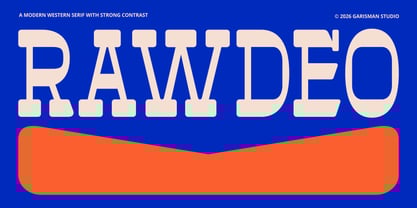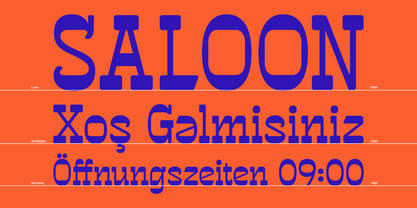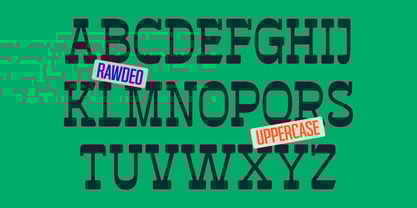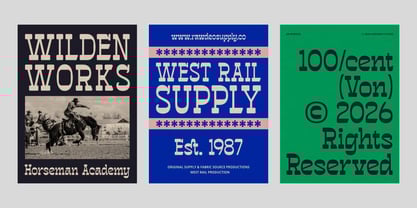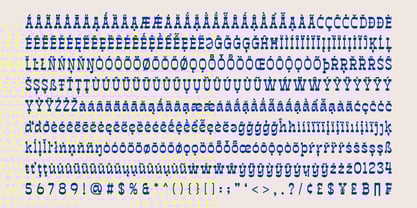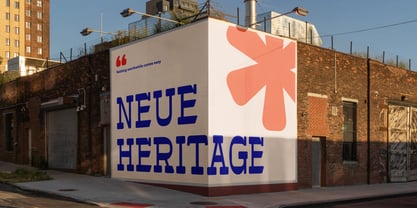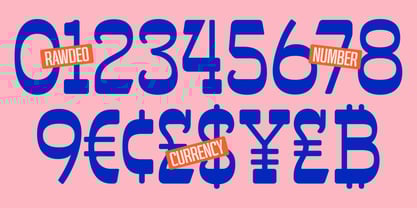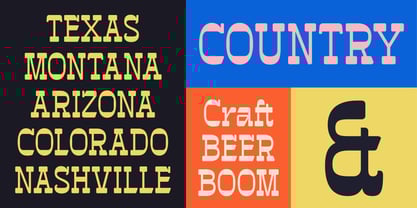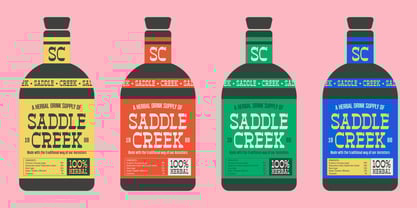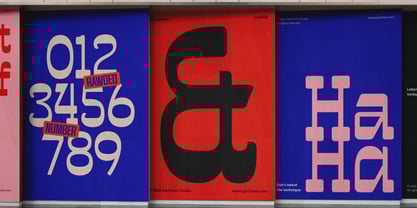
GR Rawdeo
by Garisman Studio
The GR Rawdeo Font Family was designed by Risman Ginarwan and published by Garisman Studio. GR Rawdeo contains 1 styles.
GR Rawdeo – Modern Western Serif Typeface with Strong Contrast is a bold slab serif display inspired by 19th-century frontier signage and classic wood type posters. Designed with strong contrast and confident serifs, it captures the spirit of old saloons, rodeo banners, and hand-painted shop signs from the 1880–1890 era. The letterforms combine vintage Western character with refined modern construction, making GR Rawdeo suitable for both nostalgic branding and contemporary design projects. Its dramatic presence works exceptionally well in logos, packaging, t-shirts, film titles, YouTube thumbnails, and large-scale headlines. GR Rawdeo includes OpenType features such as denominators, numerators, fractions, ordinals, stylistic alternates, localized forms, slashed zero, standard ligatures, and discretionary ligatures—allowing flexibility for expressive display typography. With support for 99 languages, GR Rawdeo is ready for global branding, editorial headlines, and vintage-inspired campaigns.